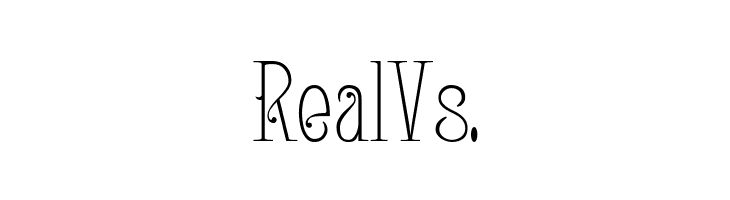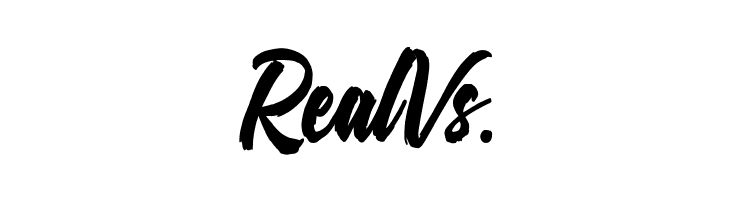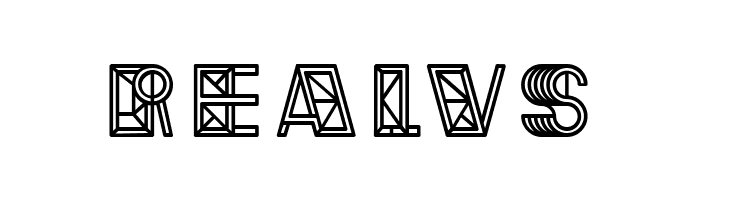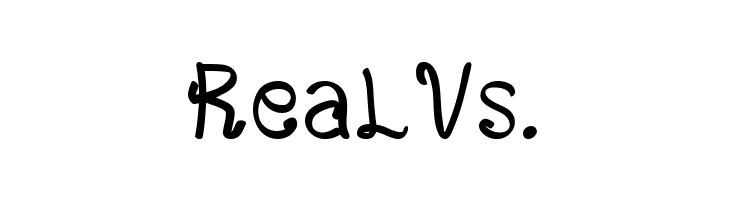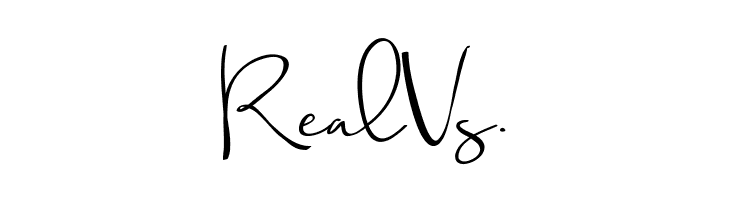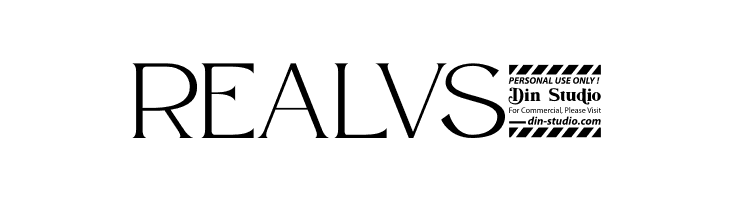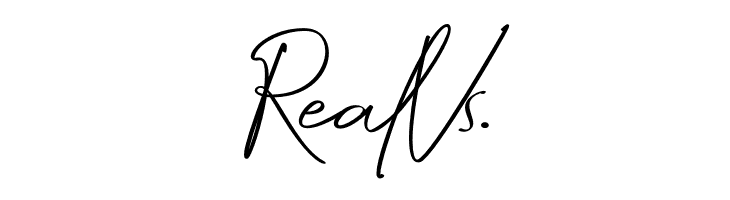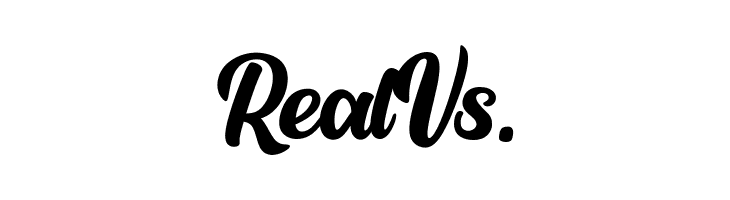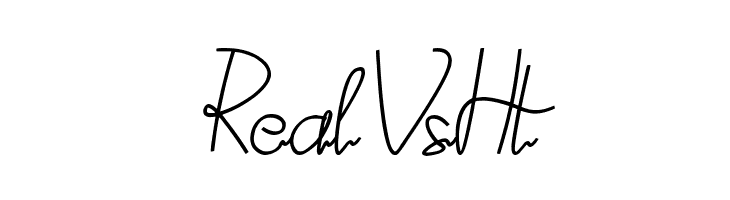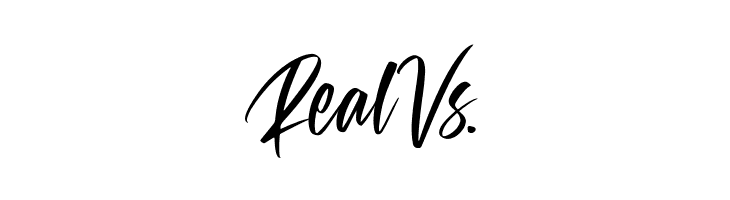
A flowing, cursive italic font with elegant, connected strokes.
A playful handwritten font with rounded, consistent strokes and a casual style.
A playful, handwritten font with rounded edges and a casual style.
A geometric and artistic font with intricate patterns and bold lines.
An ultra-light, tall, and narrow font with a modern, minimalist style.
An elegant cursive font with flowing, connected characters.
A dynamic and expressive handwritten font with fluid, interconnected strokes.
A fluid, cursive handwritten font with an elegant and personal style.
A high-contrast serif font with elegant, sharp serifs and a classic style.
A decorative font with elegant, swirling serifs and intricate curls.
A dynamic and expressive handwritten font with fluid, flowing letterforms.
A dynamic, expressive handwritten font with fluid, flowing letterforms.
A dynamic, expressive handwritten font with fluid strokes and elegant slant.
A bold, decorative script font with flowing, cursive design.
A bold, cursive font with thick strokes and a flowing, dynamic style.
A modern, geometric font with thin, uniform lines and a minimalist style.
A modern, geometric font with clean lines and a minimalist aesthetic.
A modern, geometric font with clean lines and a futuristic look.
A modern, geometric font with bold lines and a futuristic style.
A bold, geometric font with high contrast and unique angular cutouts.
A clean, modern sans-serif font with geometric structure and uniform width.
A sleek, modern font with tall, narrow characters and consistent stroke width.
A graceful and elegant script font with flowing, cursive letterforms.
An elegant, flowing script font with intricate loops and swashes.
A classic Blackletter font with ornate, angular characters and decorative flourishes.
A modern, geometric font with clean lines and subtle curves.
A modern, geometric font with clean lines and angular shapes.
A playful, whimsical script font with flowing, interconnected letters.
A bold, modern script font with interconnected characters and a fluid, elegant style.
A whimsical, decorative font with bold, playful curls and exaggerated serifs.
A bold, geometric font with rounded edges and a modern, futuristic style.